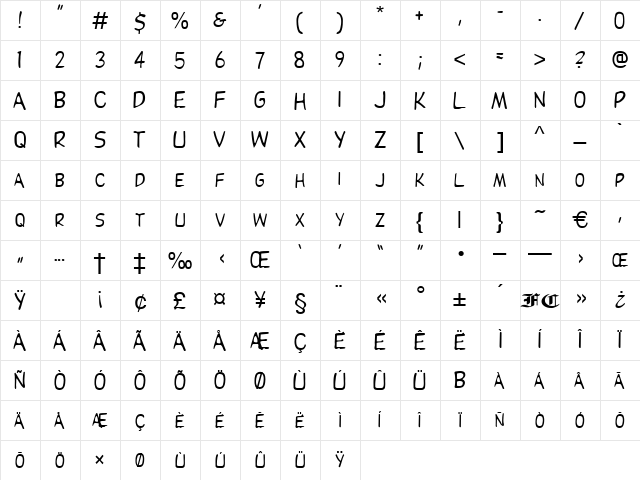
Residenz Regular
Design Context for Residenz Typeface
Residenz is a composed and adaptable typeface that performs quietly and consistently across a wide range of design contexts.